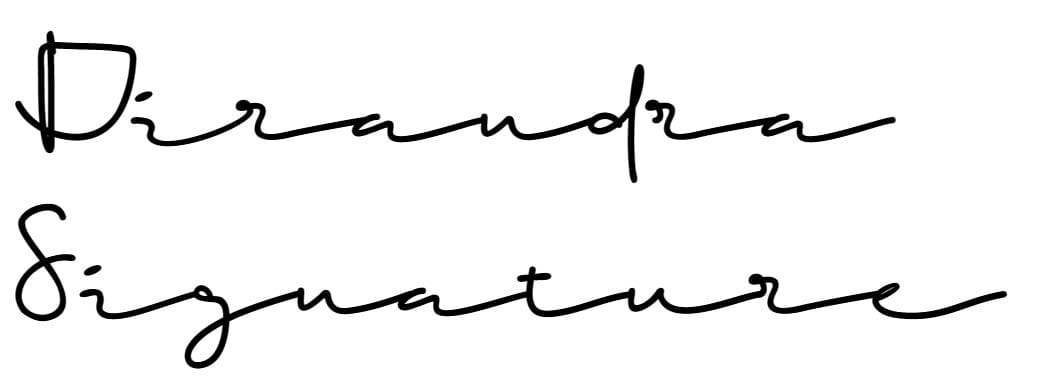
Dirandra Signature
Dirandra Signature is a handwritten font (2019). It looks like someone actually wrote it by hand: relaxed, friendly and a little imperfect in a good way. It's a free download, and you can try it with your own text in the preview above first.
What You Can Type With Dirandra Signature
Dirandra Signature covers the full alphabet in upper and lowercase, plus all ten numbers, so you can set names, dates and prices without switching fonts. Common punctuation such as &, !, ? and @ is included as well. It doesn't include accented letters such as é or ñ, which makes it an English-only font.
Ligatures and Smart Letters in Dirandra Signature
Where Dirandra Signature Works Best
Designers usually reach for fonts like Dirandra Signature when they're making greeting cards, journal pages and friendly social posts. Its lowercase letters are small compared to the capitals, so set it a size or two bigger than usual. The file has no kerning data, so in logos and big titles check pairs like AV, To and Wa and tighten the spacing by hand. Set it a bit larger than you would a normal text font. Handwriting styles lose their charm once they get too small to read comfortably.
Does Dirandra Signature have ligatures?
Yes. Dirandra Signature has ligatures that turn on by themselves in most design apps and browsers, so you don't need to do anything special.
Does Dirandra Signature support accented letters?
No. Dirandra Signature has no accented letters such as é, ñ or ü, so it's best for English text.